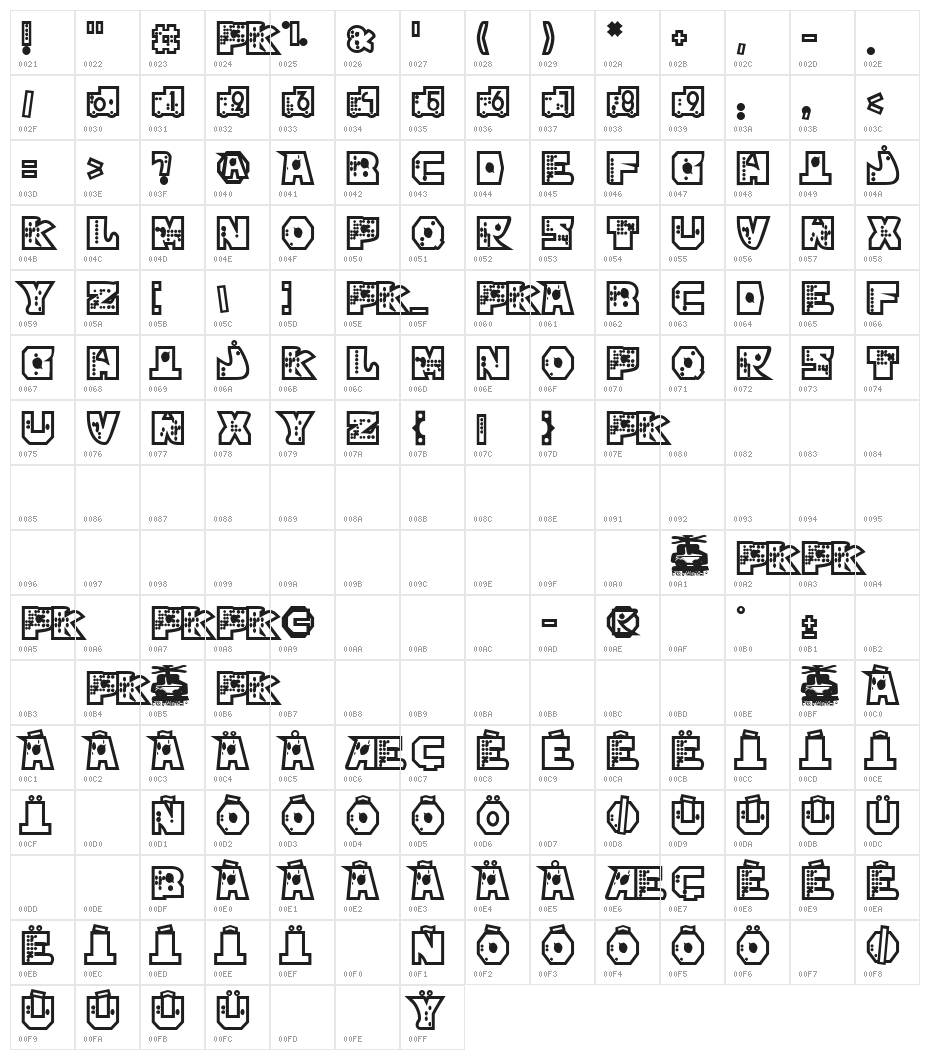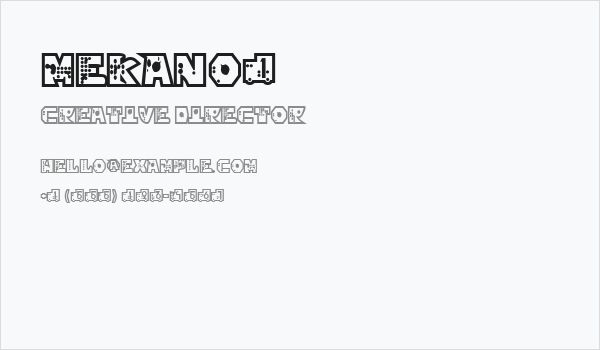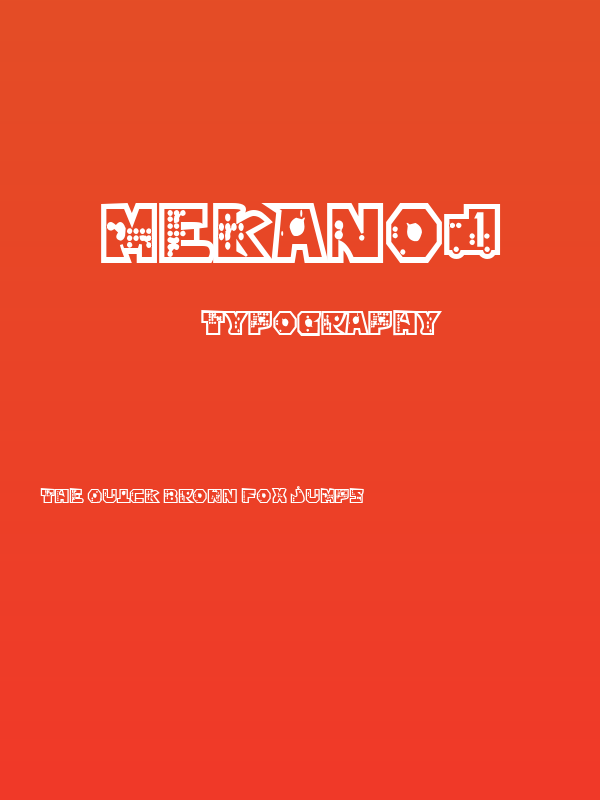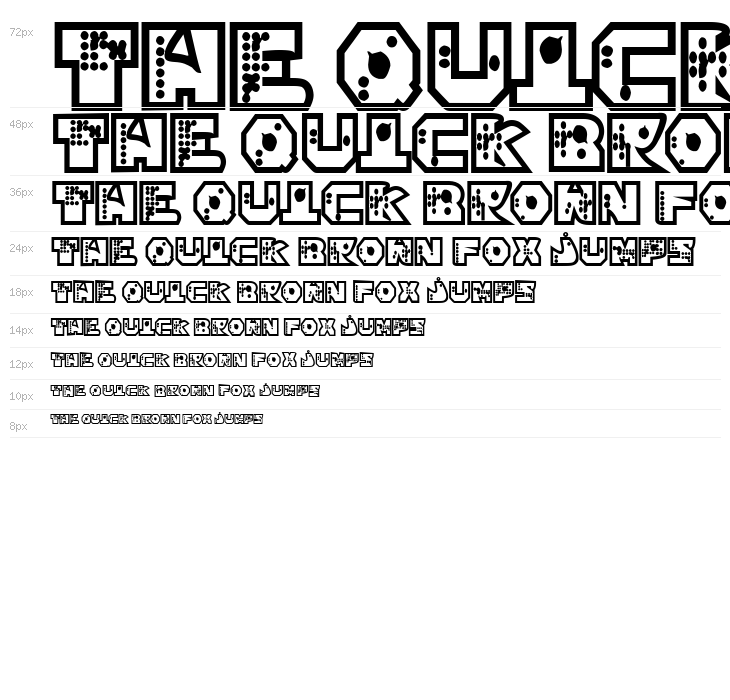
mekano1 Font
This font features a bold, geometric design with a playful and modern twist. Each character is constructed with a combination of solid shapes and dotted patterns, creating a unique and eye-catching appearance. The letters are outlined with a thick border, enhancing their visibility and impact. The font maintains a consistent height across all characters, providing a uniform look. Its distinctive style makes it ideal for creative and artistic projects, where a strong visual statement is desired. The inclusion of numbers and special characters ensures versatility in various design applications.
Proposed ProjectsIdeal for posters, album covers, children's books, and branding materials.